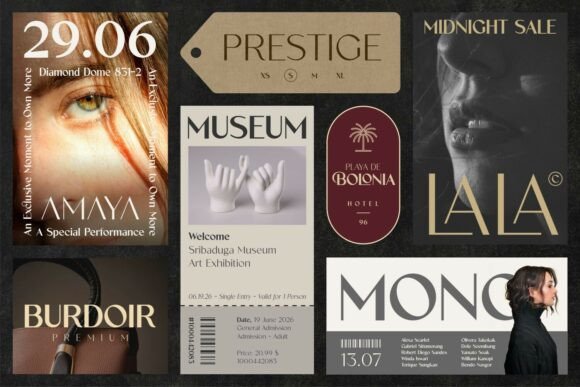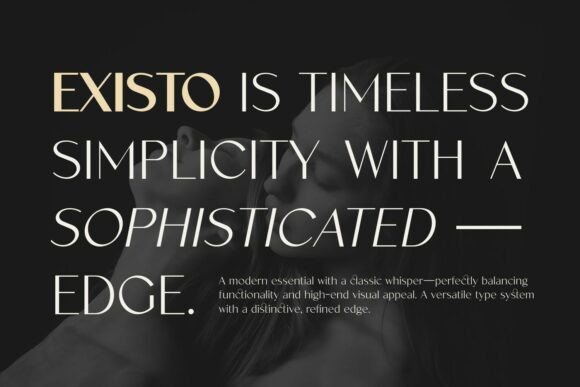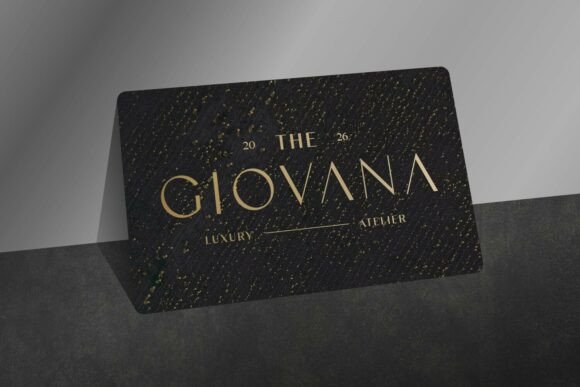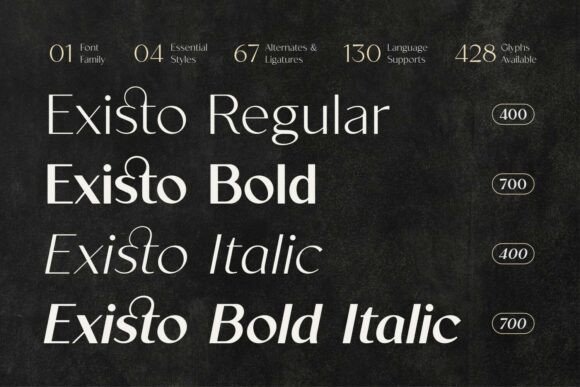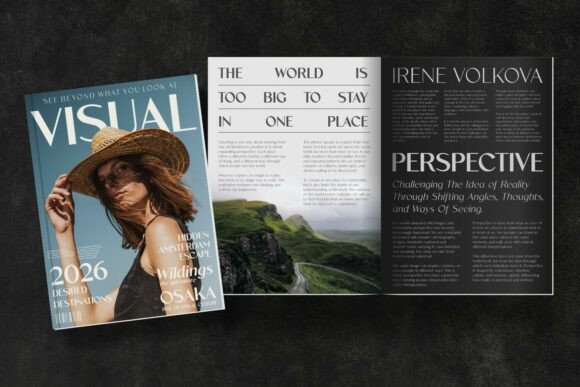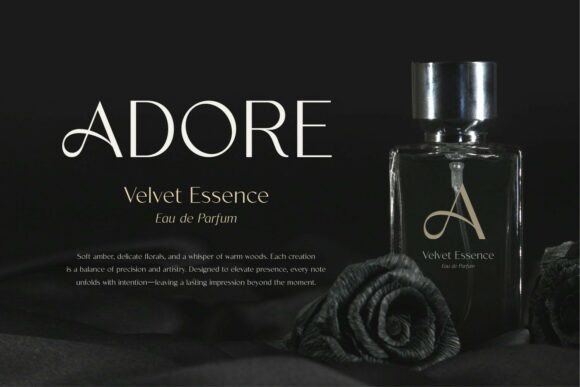
Introduction to Existo Font
Existo is a refined typeface crafted with precision, redefining the balance between modern sans-serif clarity and subtle serif-inspired elegance.
It brings together clean structure and sophisticated character, resulting in a versatile font that feels both contemporary and timeless Designed for high-end visual communication, Existo carries a distinctive personalityโ€”minimal yet expressive, elegant yet confident.
Key Features of Existo Font